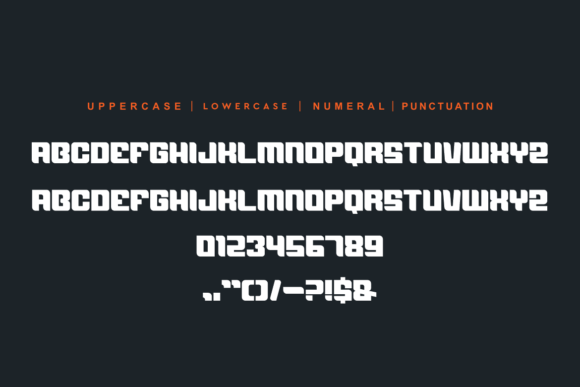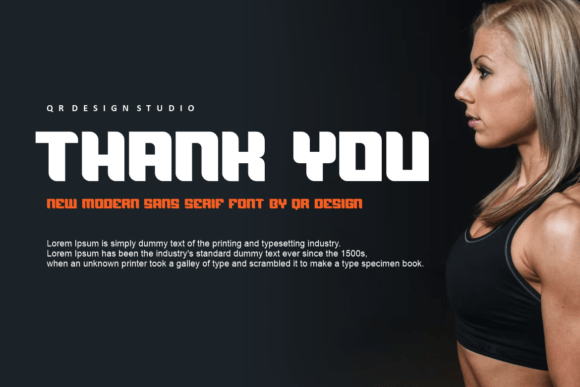
The Moment of Creative Spark
You know that feeling when you stumble upon the perfect font to elevate your design? It’s like a spark of inspiration that sets your creativity ablaze. The right font can make all the difference between a good design and a great one.
For designers, finding that perfect font can be a game-changer. That’s where the Break Sporter Font comes in – a cool and bold sans serif font designed to take your projects to the next level. With its unique style and versatility, Break Sporter Font is the perfect addition to any designer’s toolkit.
Whether you’re working on a logo, brochure, or website, Break Sporter Font is sure to bring a touch of sophistication and elegance to your design. Its bold and modern look makes it an ideal choice for designers who want to make a statement and stand out from the crowd.
Break Sporter Font Key Features
- Font Family: Break Sporter is a modern sans-serif font family designed for sports and action-related applications.
- Character Count: The font family includes over 900 characters, including Latin, Cyrillic, and Greek alphabets, as well as a range of punctuation and symbol characters.
- Unique Characteristics: Break Sporter font features a distinctive, dynamic design with bold lines and sharp angles, making it well-suited for use in sports and action-related applications where a sense of energy and movement is desired.
Break Sporter Font Review
Break Sporter Font is a unique and captivating typeface that’s perfect for sports-related projects or those that require a bold, energetic feel. ✨ I love how the font’s rugged edges and geometric shapes evoke a sense of dynamism and movement. It’s ideal for headlines, titles, and any text that needs to stand out.
Here are some features that make Break Sporter Font shine:
- ✨ Highly customizable: Break Sporter Font comes with a range of weights, styles, and ligatures, allowing designers to fine-tune the look to suit their needs.
- ✨ Versatile: Whether you’re working on a sports website, a fitness app, or a video game, Break Sporter Font adapts seamlessly to any project.
- ✨ Unique character: Break Sporter Font’s distinctive design sets it apart from other fonts, making it a great choice for designers looking to add some personality to their work.
- ⚠️ Limited language support: Break Sporter Font may not support all languages, which could be a problem for designers working on projects that require multilingual text.
- ⚠️ May be too bold: Depending on the project, Break Sporter Font’s bold, energetic feel might be overwhelming or difficult to read in certain contexts.
Overall, I’d say Break Sporter Font is a great choice for designers who want a bold, attention-grabbing typeface that’s perfect for sports-related projects or anything that needs a dynamic feel. Just be mindful of the limitations, and you’ll be all set!
Break Sporter Font is ideal for:
- Creating bold and eye-catching headlines.
- Designing sports-themed graphics and posters.
- Adding a touch of ruggedness to your designs.
For optimal results, pair Break Sporter Font with a clean and simple background to let the font take center stage.